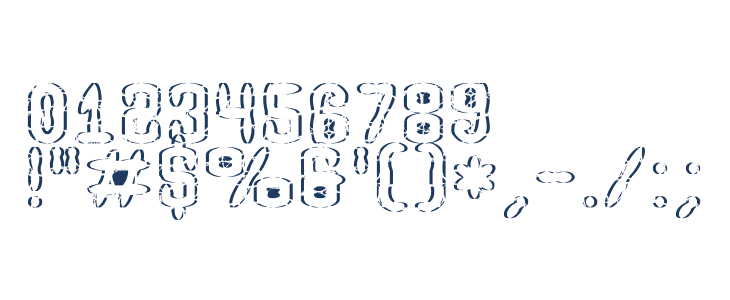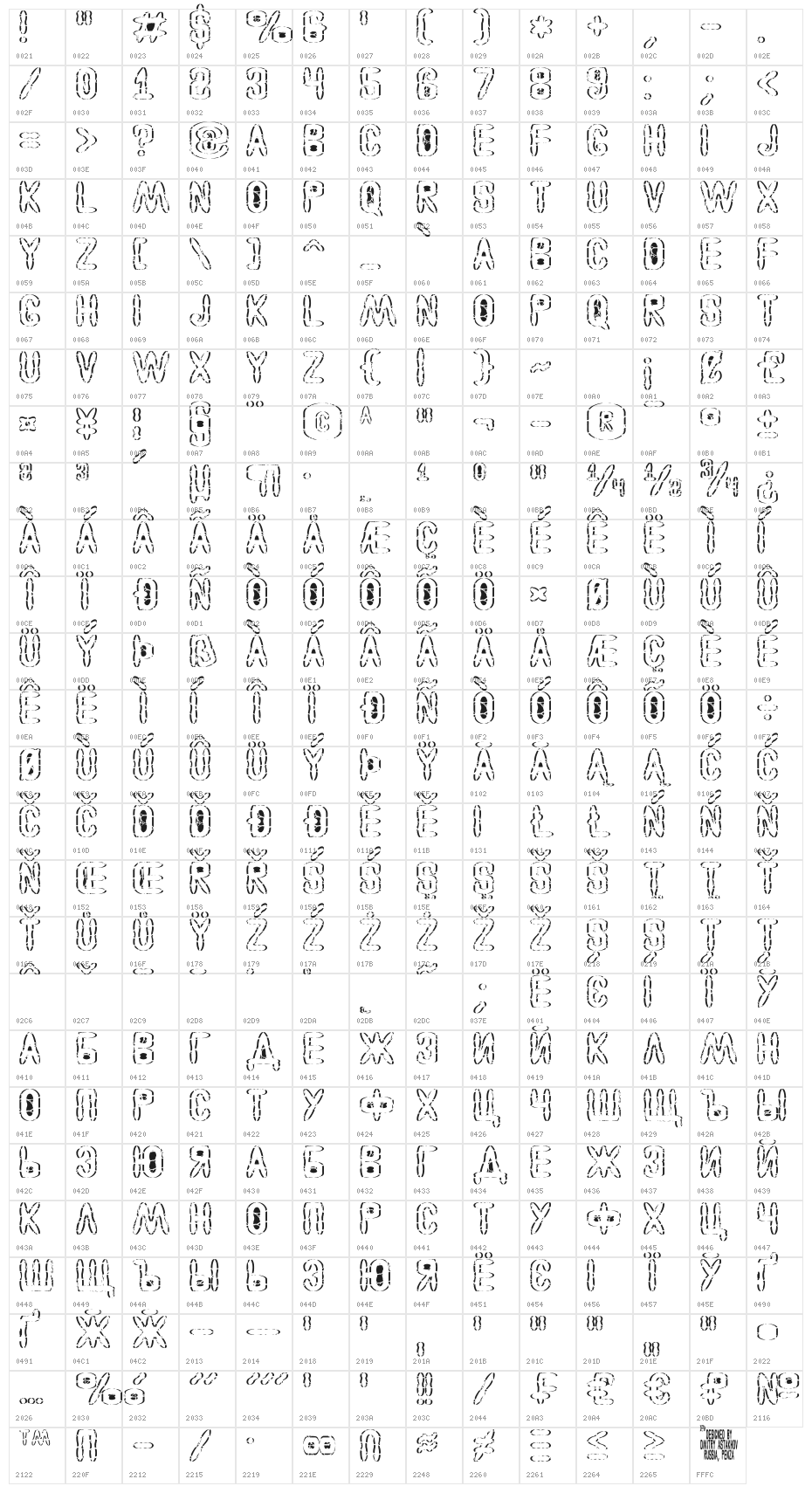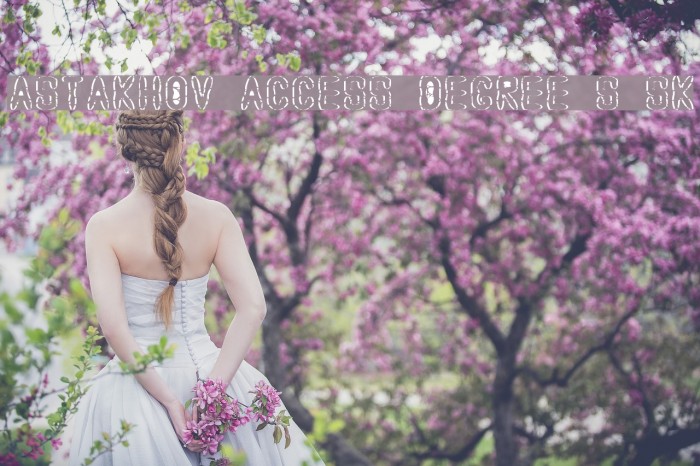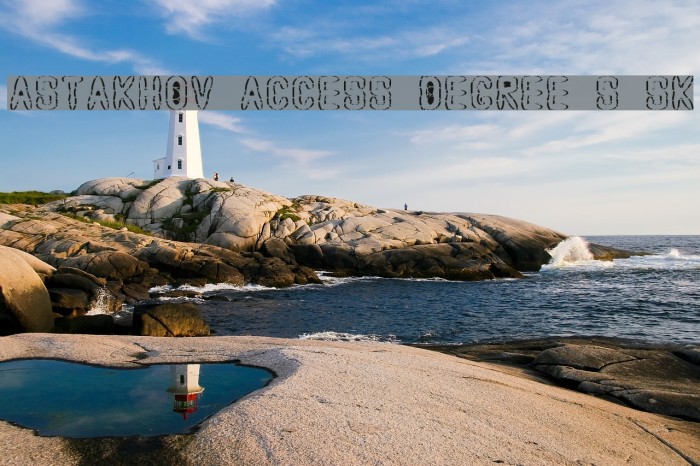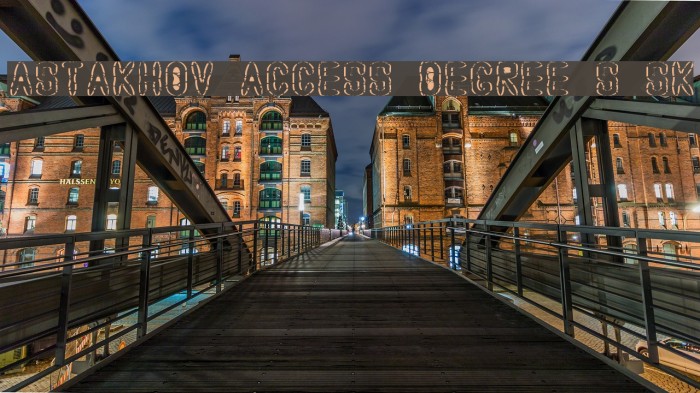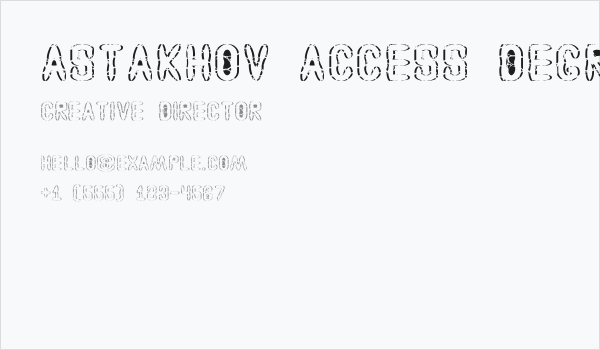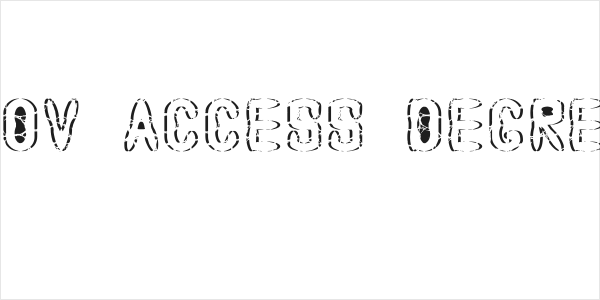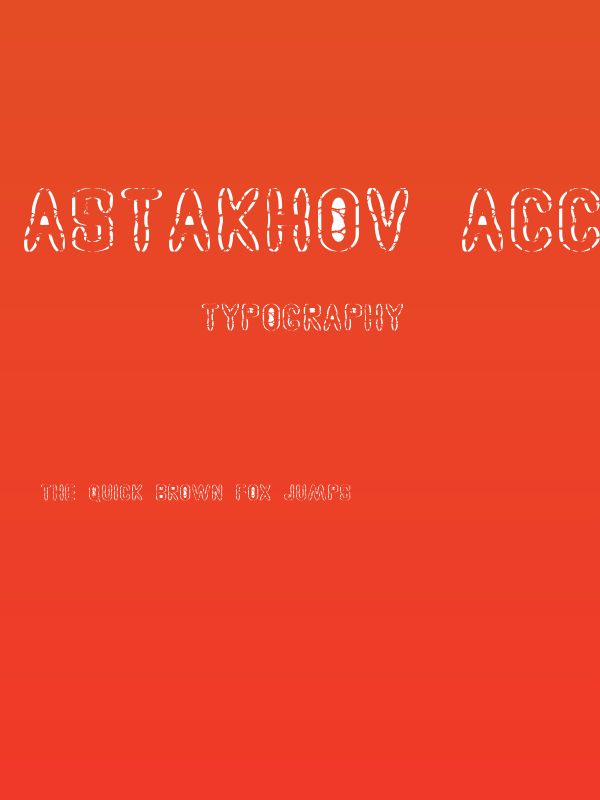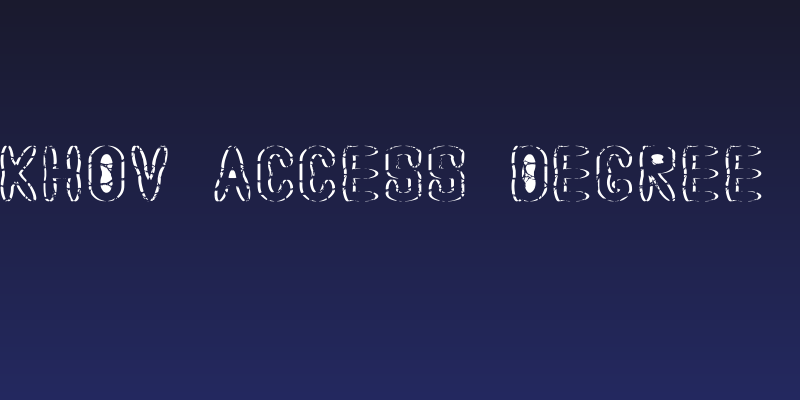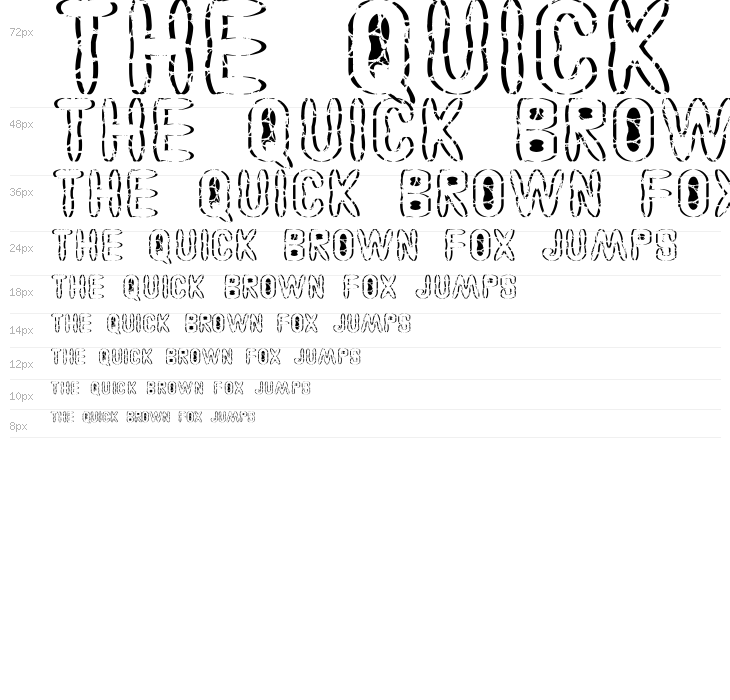
Astakhov Access Degree S Sk Font
Astakhov Access Degree S Sk Description
This font features a unique, distressed style with a stencil-like appearance. The characters are bold and have a rugged, industrial feel, with irregular edges and a textured look that suggests wear and tear. The uppercase and lowercase letters maintain a consistent style, while the numbers and special characters complement the overall design. This font's distinctive appearance makes it stand out, offering a sense of edginess and creativity. The spacing between characters is relatively normal, allowing for readability despite the intricate design.
| Overall Style | Industrial, Edgy, Creative |
| Proposed Projects | Ideal for projects requiring a bold, edgy look such as posters, album covers, streetwear branding, or urban-themed designs. |